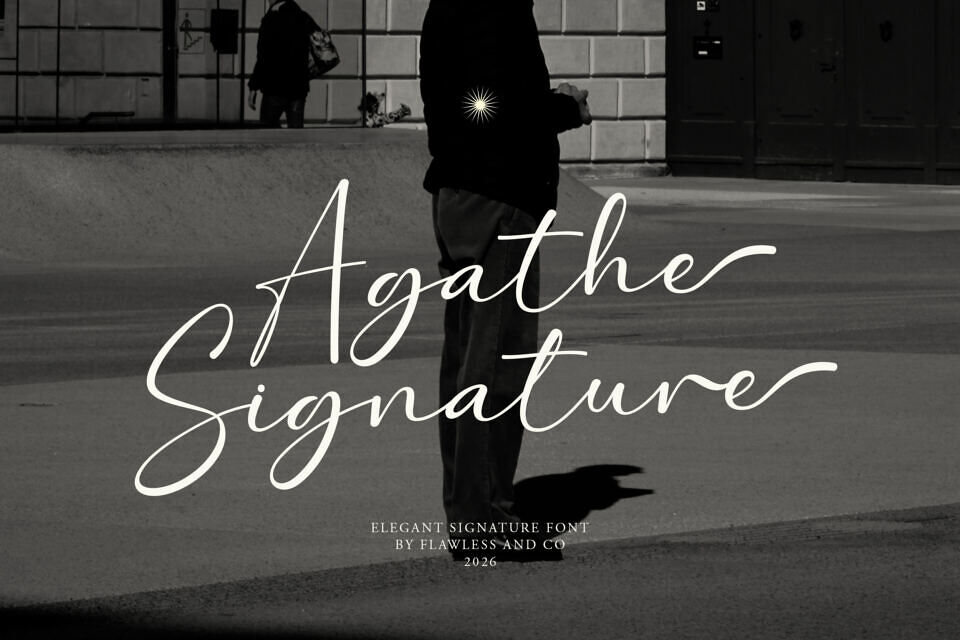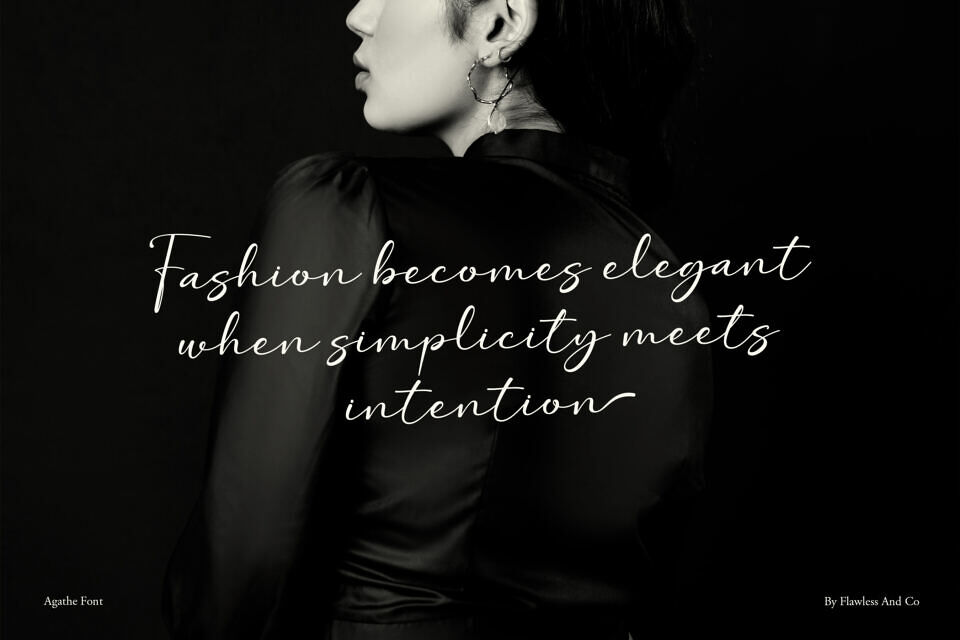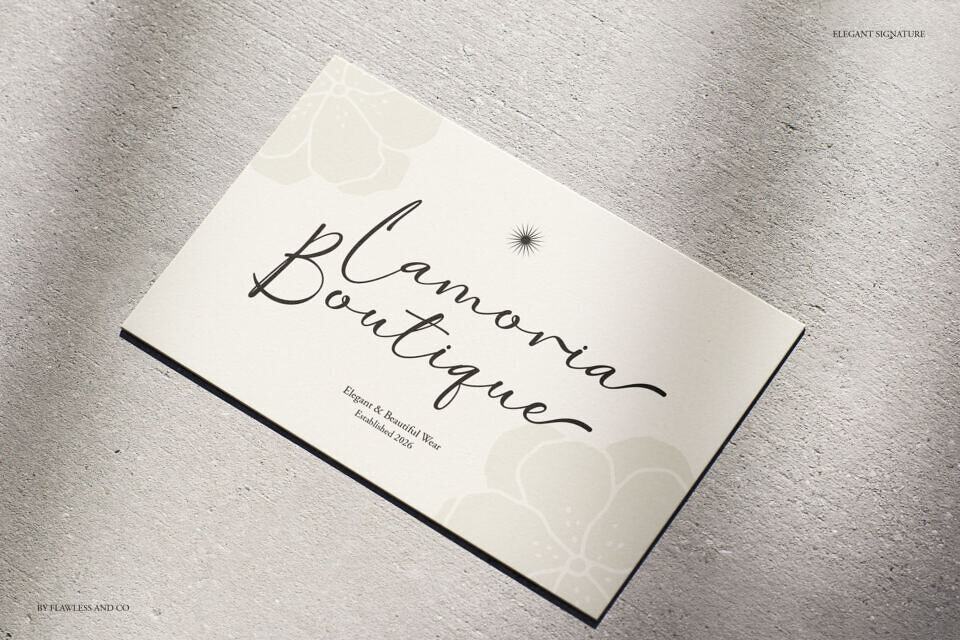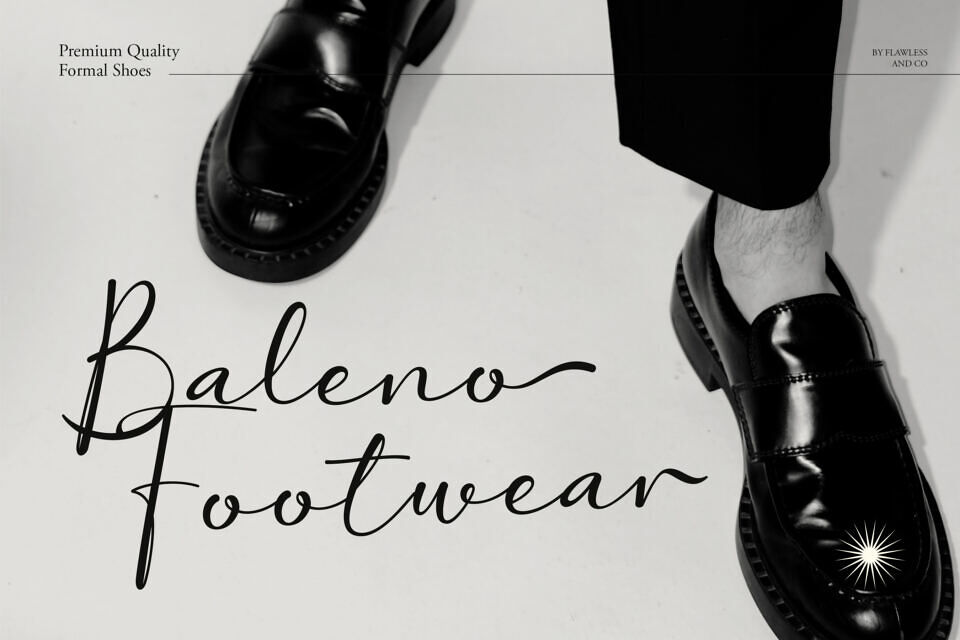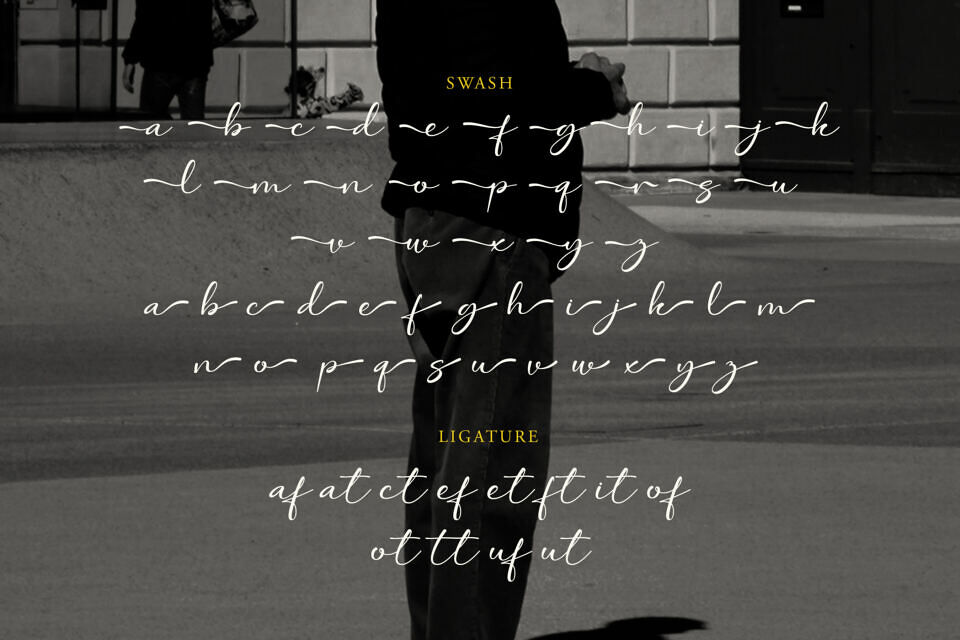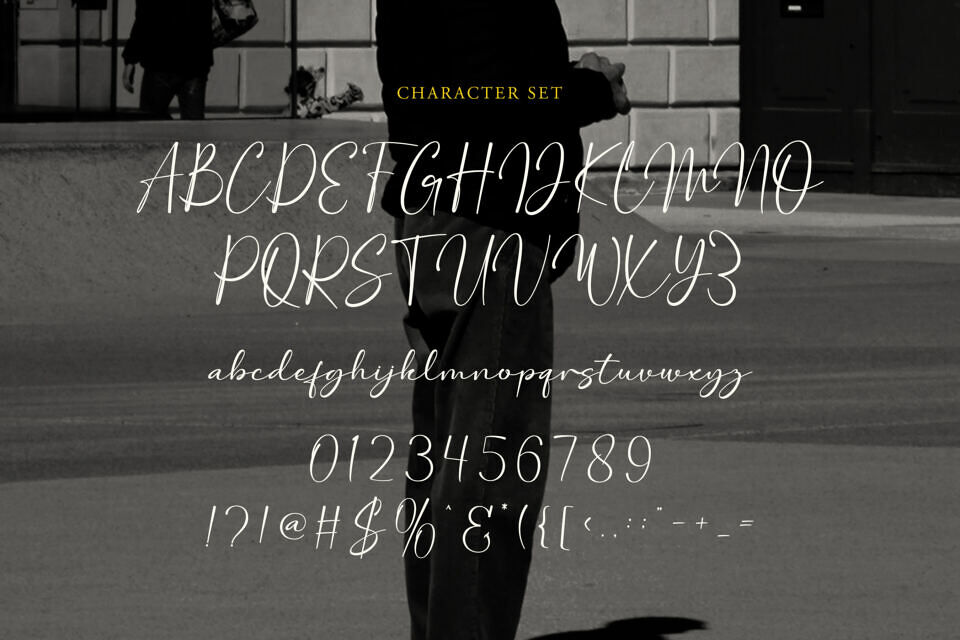
Agathe Font
Agathe Signature is an elegant handwritten signature font crafted to capture the beauty of natural handwriting with a sophisticated and modern touch.
Featuring smooth flowing strokes and delicate curves, this font brings a graceful and personal character to every design. Designed to feel authentic and stylish, Agathe Signature is perfect for luxury branding, wedding stationery, fashion logos, and high-end packaging.